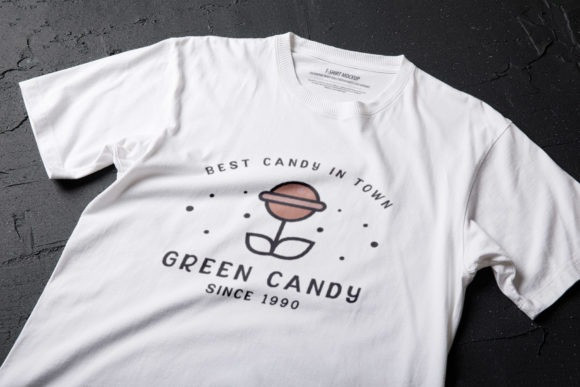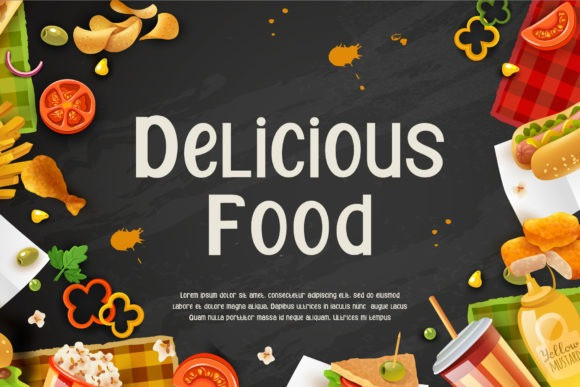
Young Blood Display Font
Young Blood is a bold, creepy and uniquely developed display font. It will look stunning on any poster flyer or print that requires a more distinct, dramatic touch.